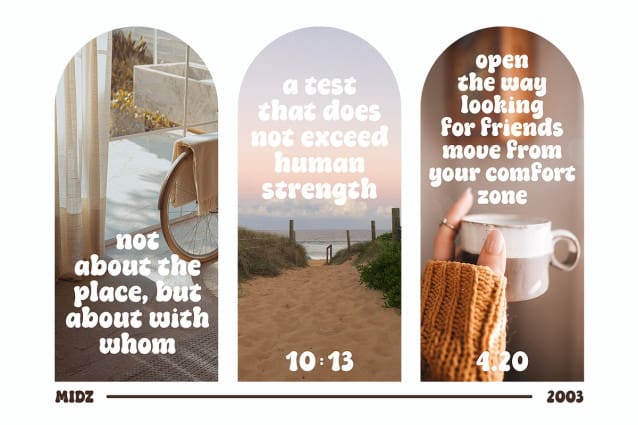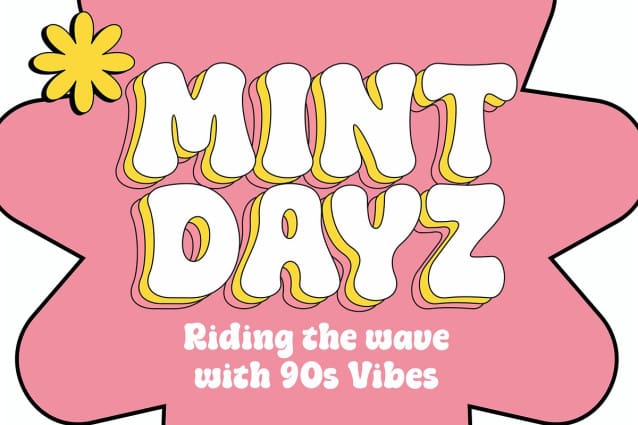
Mint Dayz Font
Mint Dayz Font, the font that seamlessly blends retro charm with modern legibility. This font captures the essence of yesteryears, infusing a sense of vintage elegance into your designs. Also Mint Dayz places a premium on readability and legibility. Each character is carefully crafted to ensure your message is crystal clear, making it suitable for a wide range of design projects.